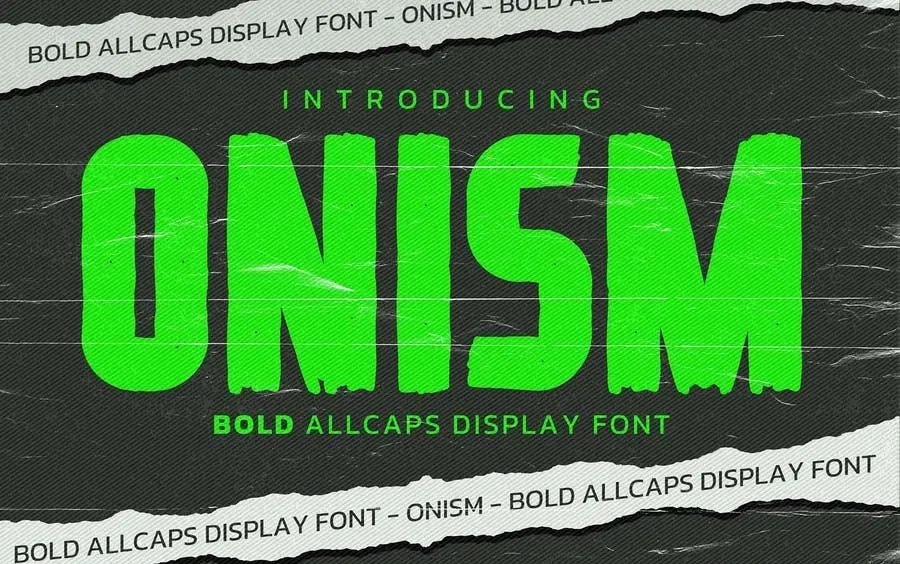
Onism – Unique Display Brush Font
Introducing Onism, a unique display brush font that brings a handcrafted feel to your designs. This font features a variety of weights, allowing for versatility in your projects. Ideal for creating eye-catching branding, logos, and striking headlines, Onism adds a personal touch to both digital and print media.
• Utilize Onism for branding elements to create a memorable identity.
• Incorporate it into web design for a modern, artistic look.
• Use it for print materials like posters, flyers, and business cards.